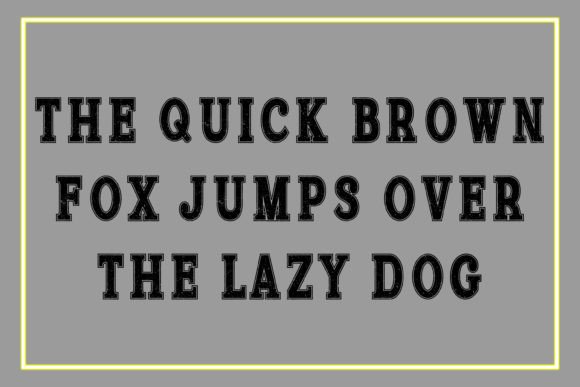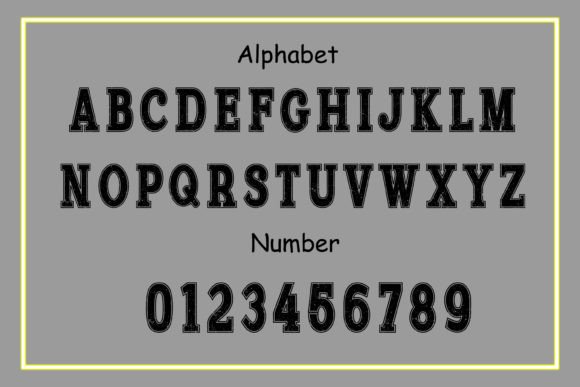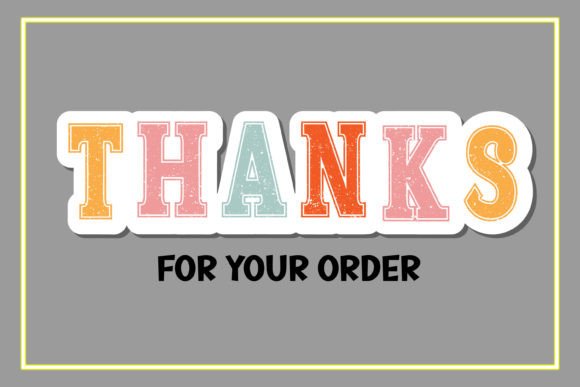
Unlocking Creativity with College Retro Grunge Font
Are you tired of using the same old fonts in your design projects? Do you want to add a touch of personality and whimsy to your creations? Look no further than the College Retro Grunge Font, a vibrant and uplifting color font that’s sure to elevate your designs to the next level.
What is College Retro Grunge Font?
Our College Retro Grunge Font is a unique and eye-catching font that’s perfect for designers and crafters looking to add a splash of fun and creativity to their projects. With its bold and playful design, this font is sure to grab attention and leave a lasting impression.
The Power of Color Fonts
Color fonts are a game-changer for designers, offering a world of creative possibilities that traditional fonts simply can’t match. Our College Retro Grunge Font takes full advantage of this technology, featuring a vibrant and dynamic design that’s sure to add a pop of color to any project.
Whether you’re working on branding initiatives, packaging designs, logotypes, or headlines, our College Retro Grunge Font is the perfect choice. Its bold and playful design makes it an absolute fit for projects that need to stand out from the crowd. Plus, its charming and whimsical vibe also makes it perfect for wedding invitations and other creative projects that require a touch of personality.
Elevate Your Designs with College Retro Grunge Font
With our College Retro Grunge Font, you can add a sprinkle of charm and whimsy to your designs that’s sure to elevate them to the next level. Whether you’re a seasoned designer or a crafty DIY enthusiast, this font is the perfect tool for unlocking your creative potential.
Key Features of College Retro Grunge Font
- Vibrant and Uplifting Design: Our College Retro Grunge Font features a bold and playful design that’s sure to grab attention and leave a lasting impression.
- Perfect for Branding Initiatives: With its bold and eye-catching design, this font is perfect for branding initiatives that need to stand out from the crowd.
- Color Font Technology: Our font takes full advantage of color font technology, offering a world of creative possibilities that traditional fonts simply can’t match.
- Charming and Whimsical Vibe: The College Retro Grunge Font has a charming and whimsical vibe that’s perfect for wedding invitations and other creative projects that require a touch of personality.
How to Use College Retro Grunge Font
Tips and Tricks for Getting the Most Out of College Retro Grunge Font
- Experiment with Different Colors: One of the best things about our College Retro Grunge Font is its color font technology. Experiment with different colors and combinations to find the perfect look for your project.
- Mix and Match with Other Fonts: Don’t be afraid to mix and match our College Retro Grunge Font with other fonts to create a unique and eye-catching design.
- Use it for Headlines and Logotypes: The bold and playful design of our font makes it perfect for headlines and logotypes that need to stand out from the crowd.